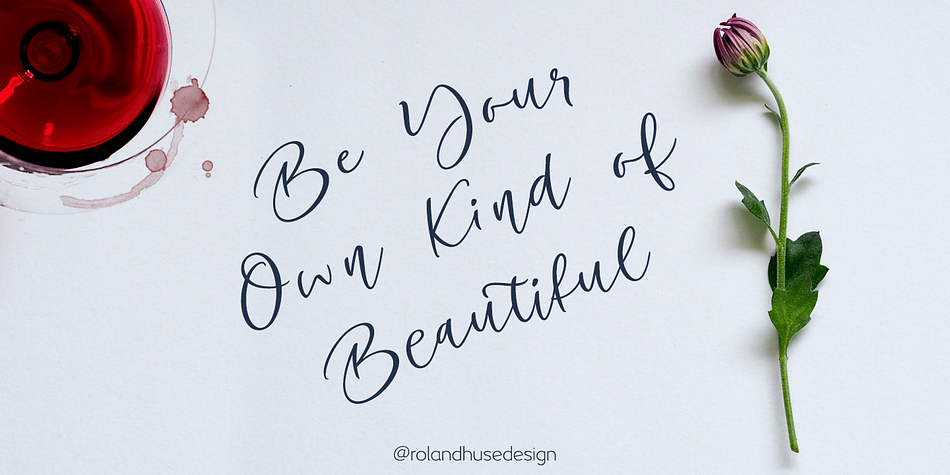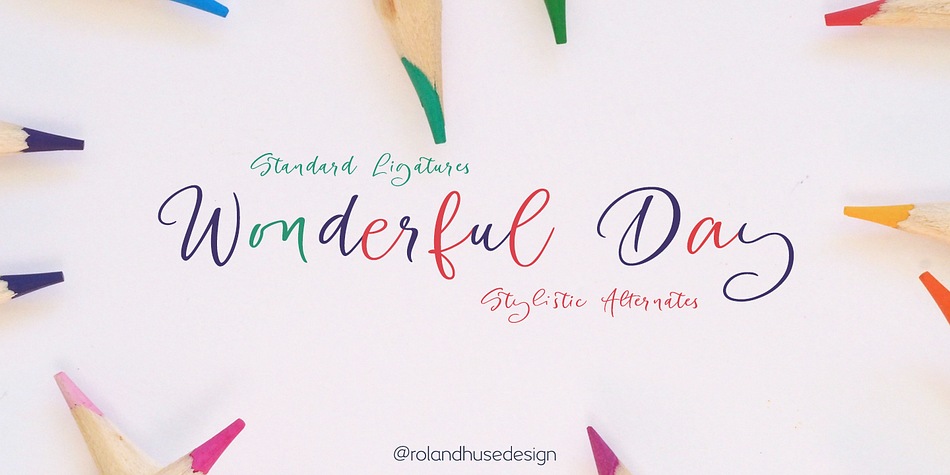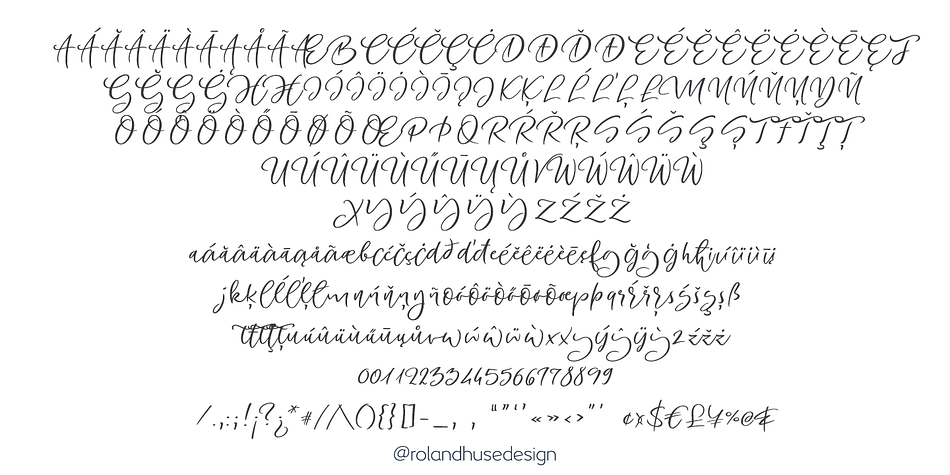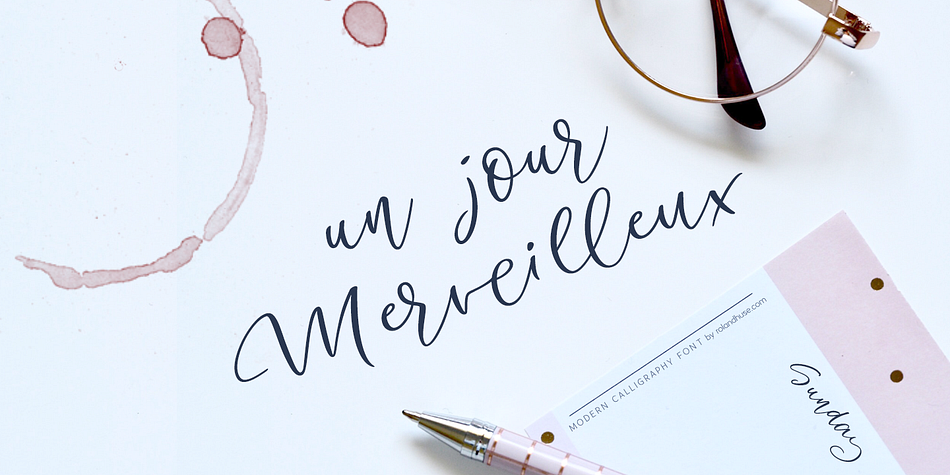
Designed by Roland Hüse, Un Jour Merveilleux is a modern calligraphy and script font published by Fonts by Roland Hüse.
Un Jour Merveilleux means “a Wonderful Day” in French. This font is a Modern Calligraphy script with stylistic altrnates for all the lowercase letters and numbers for natural flow and rhythm.
Smaller and larger alternates are set to switch between each other within the Contextual Alternates Open Type rule, so make sure to enable this feature while setting text with this font.
Alternatively you may select and replace characters from the Glyphs window manually.
There are PUA encoded ligatures for double letters bb, ht, li, ll, lt, on, oo, rr, ss and tt.
The font set covers Eastern, Central and Western European accented Latin Languages.